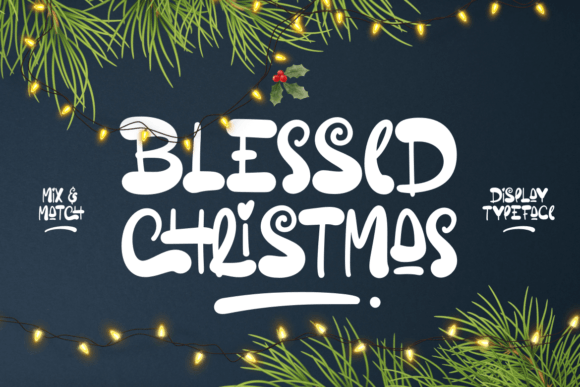
Introducing Blessed Christmas Font, the ultimate font for all your T-shirt design needs! Created by the talented jinanstd, this font belongs to the display font family, ensuring that your designs will stand out in the crowd.
With Blessed Christmas Font, you can instantly transport the spirit of Christmas to your creative projects. This font is more than just a simple typeface – it's a celebration of the holiday season. Its unique mixable upper and lower case styles add a playful and decorative touch to your designs, making them truly eye-catching.
But that's not all! Blessed Christmas Font goes above and beyond with its range of ligatures and selection of swashes. These features seamlessly integrate into your text, allowing for endless customization options. You can effortlessly transform your designs into something truly magical and unique.
Whether you're designing holiday greeting cards, creating festive product packaging, or crafting Christmas-themed quotes and posters, Blessed Christmas Font is the perfect choice. It elevates your designs, infusing them with the joy and warmth of the holiday season.
Not only is Blessed Christmas Font incredibly versatile, but it also offers multi-language support. No matter where you are in the world, you can spread the Christmas cheer with this font.
Add a touch of charm and elegance to your designs with Blessed Christmas Font. It's a valuable addition to your design toolkit, ensuring that your creations will captivate and inspire. So why wait? Let the holiday spirit shine through your designs and grab Blessed Christmas Font today!